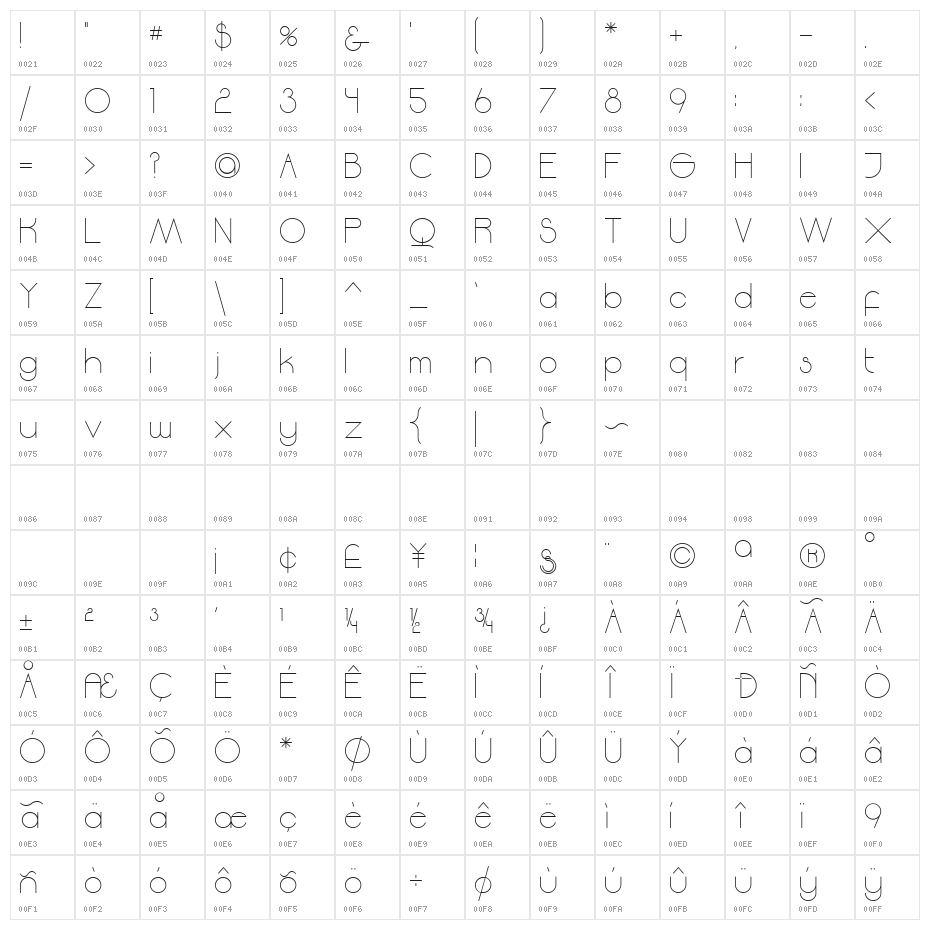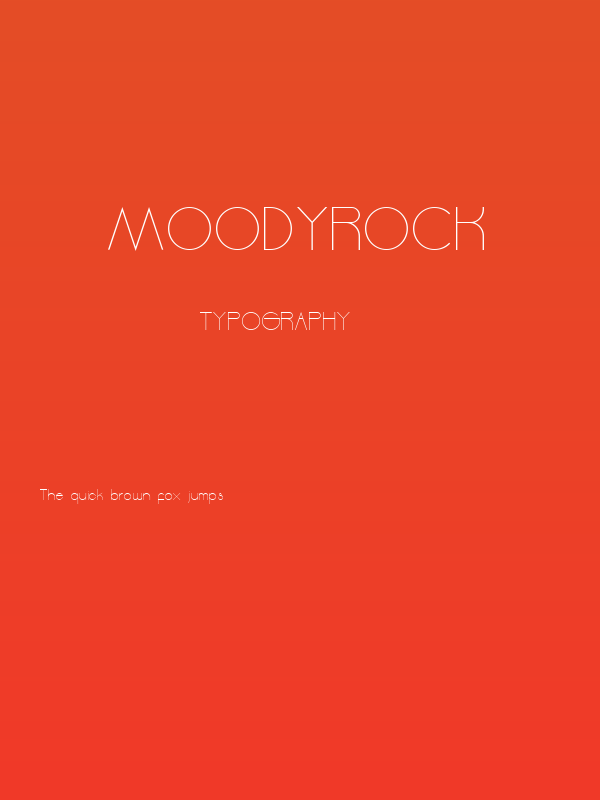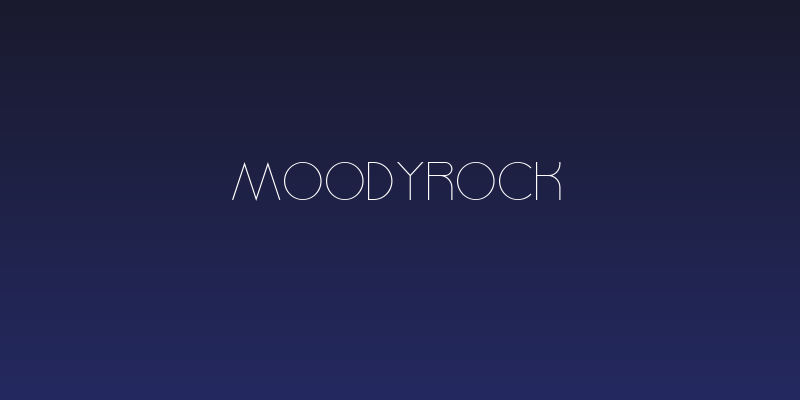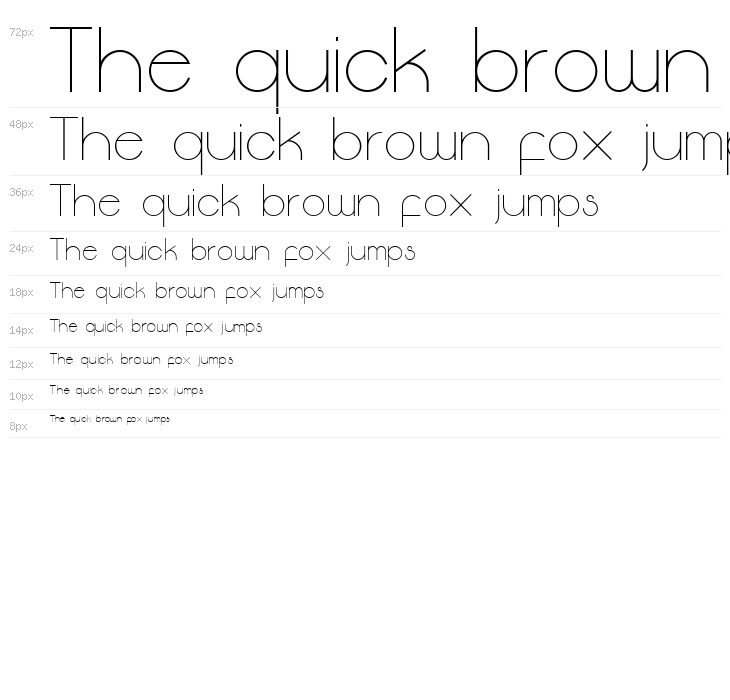
Moodyrock Font
Moodyrock Description
This font features a sleek and modern design with a geometric and minimalist aesthetic. The characters are composed of clean, thin lines with consistent stroke widths, giving it a contemporary and elegant look. The uppercase letters are tall and narrow, while the lowercase letters maintain a similar style, enhancing readability. The numerals and special characters are designed to match the overall aesthetic, providing a cohesive appearance. This font's simplicity and clarity make it versatile for various design applications.
| Use Case | Headlines, Logos, Editorial design |
| Proposed Projects | Ideal for branding, logos, modern web design, and editorial layouts. |